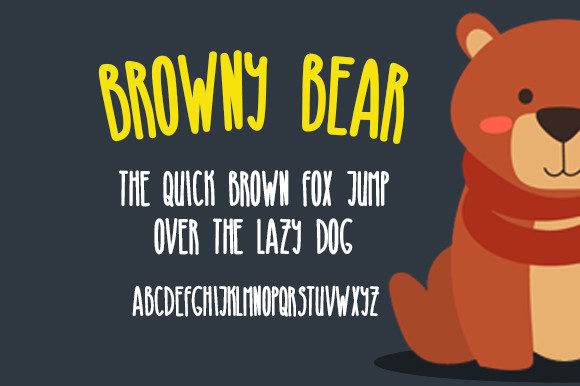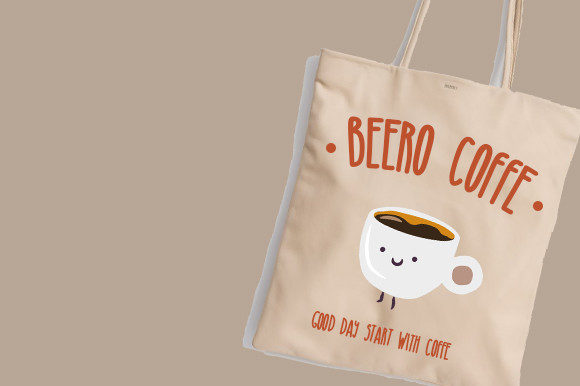
Meet Your New Design BFF: Browny Bear Font
Who hasn’t felt that rush of creative excitement when brainstorming a new project? The idea hits, and you can’t wait to bring it to life. For designers, this moment is a constant companion, and we’re always on the lookout for tools that can help us capture that spark. Enter the Browny Bear Font, a fun and tall display font designed to add a playful touch to your designs.
This charming font is perfect for branding projects, from logos to t-shirt printing and sporting designs. Its unique character will lift your design and leave a lasting impression. As a designer, you know how valuable it is to have a versatile font that can adapt to different styles and themes. That’s where the Browny Bear Font comes in – a reliable partner that will help you create designs that truly stand out.
- Unique Characteristic: Unique hand-drawn style with a mix of bold and cursive lines
- Kerning and Ligatures: Includes advanced kerning and ligature pairs for professional typesetting
I recently had the chance to work with the Browny Bear Font, and I must say, it’s a mixed bag.
- Unique Design: The font’s distinctive bear-inspired design is undeniably eye-catching and adds a playful touch to any project.
- Wide Character Set: The font includes a wide range of characters, including punctuation, numbers, and even some special characters.
- High-Quality Rendering: The font renders well in various sizes and resolutions, making it suitable for a variety of applications.
- Limited Font Weight Options: The font only comes in a few weight options, which can limit its versatility.
- No Italic or Bold Variants: The lack of italic or bold variants can make it difficult to create emphasis or add visual interest to text.
- Not Ideal for Body Text: The font’s unique design can make it challenging to read for extended periods, making it less suitable for body text.
While the Browny Bear Font has its strengths, its limitations hold it back from being a top choice for most projects. However, if you’re looking for a font to add a playful touch to a specific element or design, it might be worth considering.
The Browny Bear Font is a playful, hand-drawn font that works well for:
- Children’s book illustrations and graphics.
- Quirky and creative marketing materials.